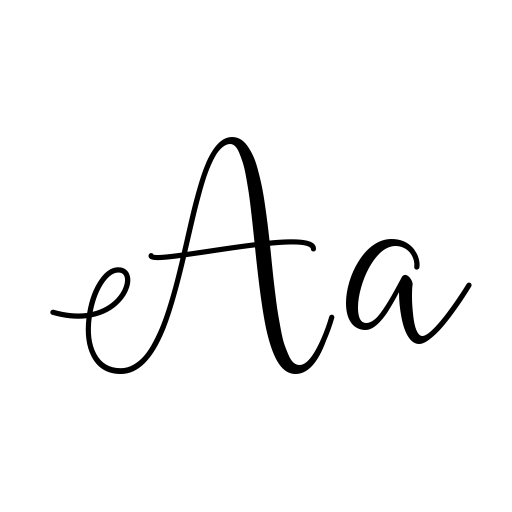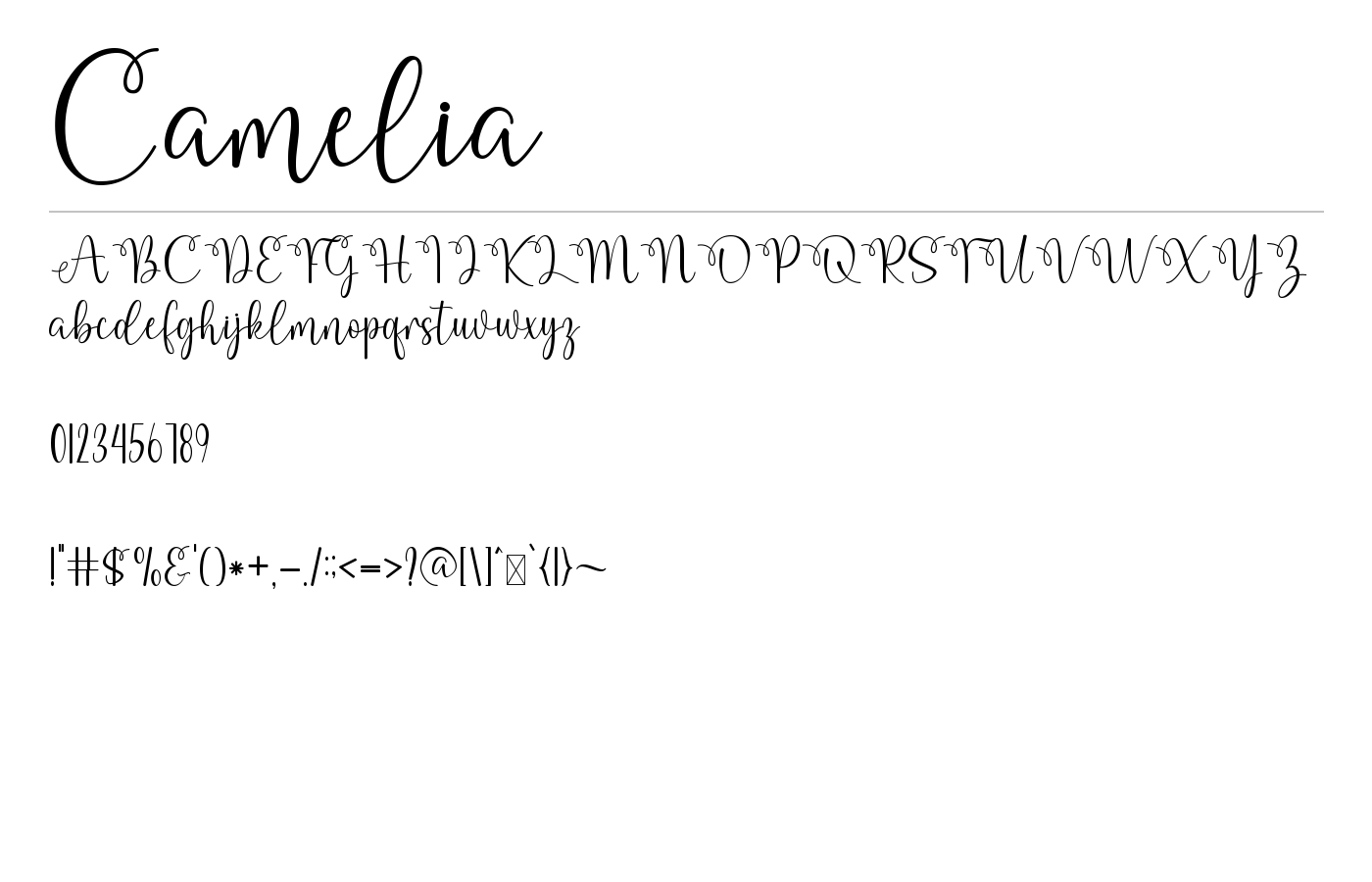
Camelia is an elegant and delicate script font featuring fine, flowing strokes with whimsical loops and a tall, narrow structure. Its graceful, handwritten style makes it perfect for sophisticated branding, invitations, and feminine design projects where a personal, artistic touch is desired.
Camelia Font
About Camelia Font